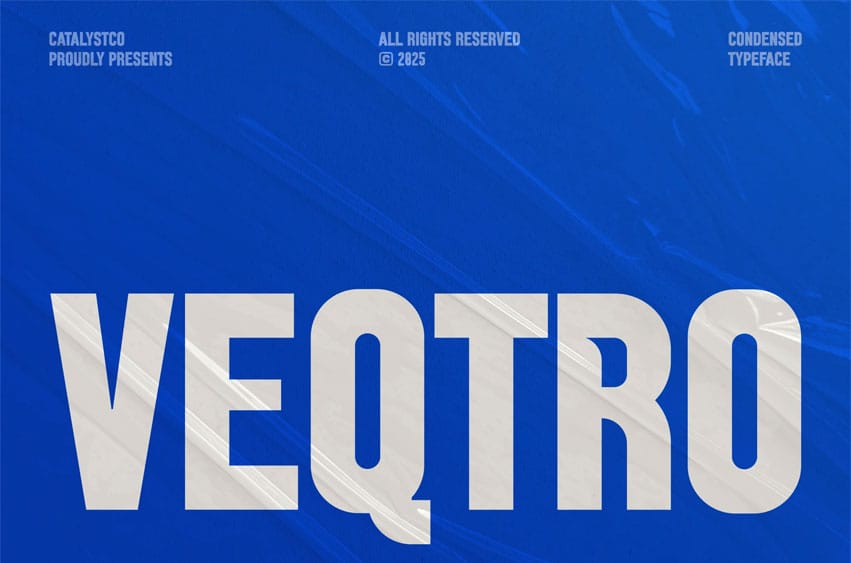
Veqtro Font is a bold, condensed sans serif typeface built for maximum impact. With tight spacing, straight edges, and a sturdy industrial feel, it’s perfect for editorial headlines, modern branding, product packaging, and fashion promotions.
Supporting multilingual characters and a full range of punctuation, Veqtro strikes a balance between contemporary style and utilitarian clarity—ideal for bold communication across print and digital media.
Use Case: editorial headlines, streetwear branding, fashion lookbooks, product packaging, storefront signage, magazine layouts, bold posters, e-commerce banners, modern business identity, music promos.